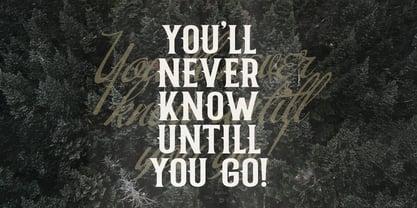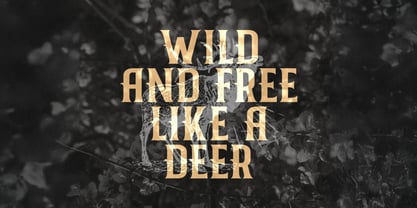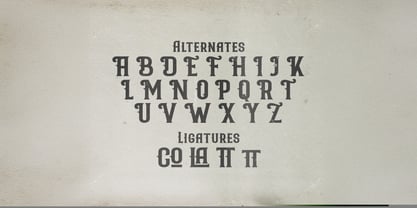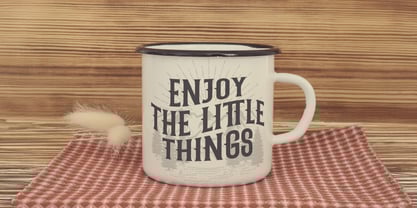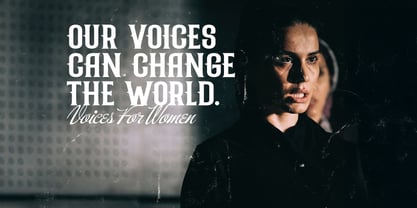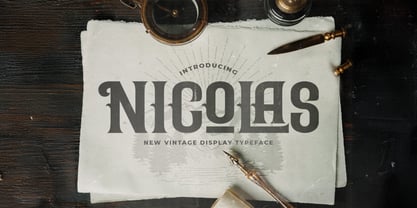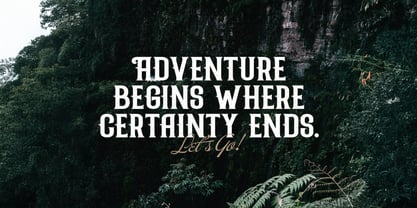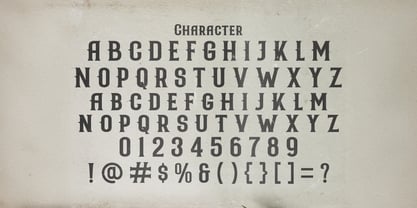
The Nicolas Font Family was designed by Virgiawan Listanto and published by Stringlabs Creative Studio. Nicolas contains 1 styles. More about this family
Nicolas is a sophisticated Victorian-style font that brings classic elegance and rich detail to your designs. With its ornate lines, decorative curves, and vintage charm, Nicolas perfectly captures the grandeur and artistry of the Victorian era.
Designers: Virgiawan Listanto
Foundry: Stringlabs Creative Studio
Nicolas